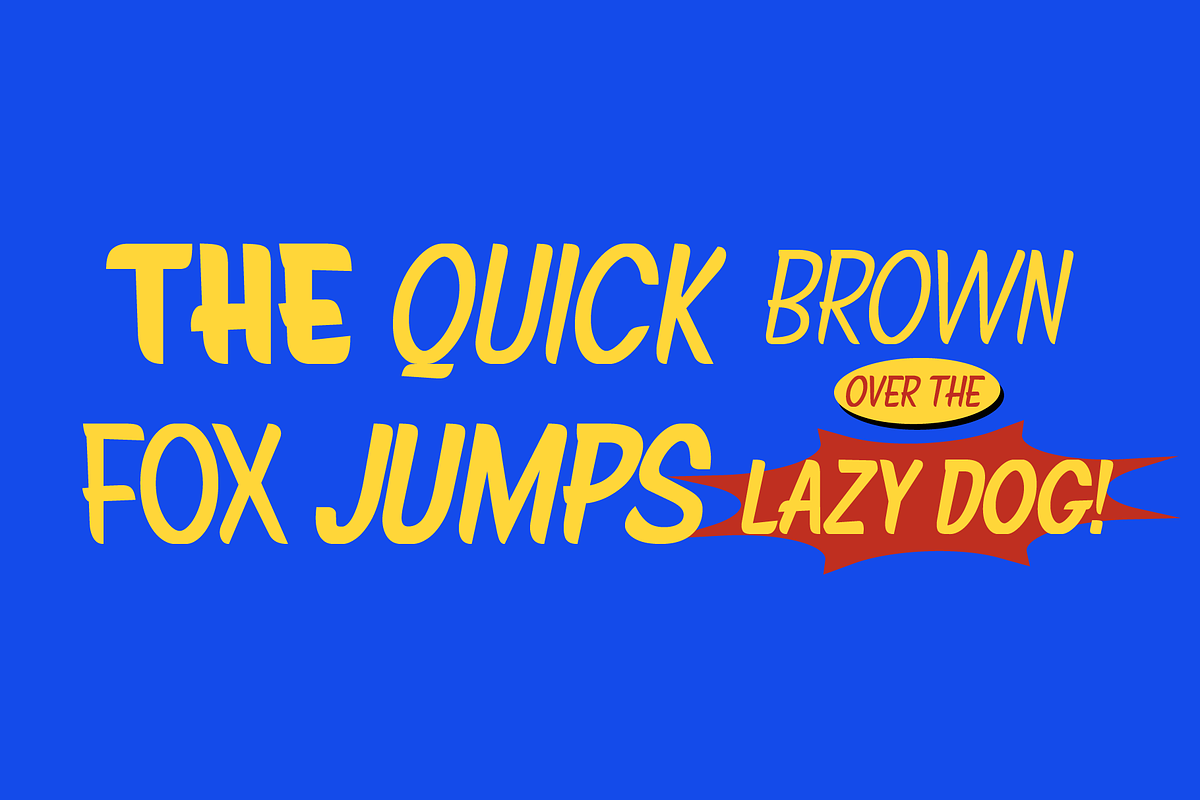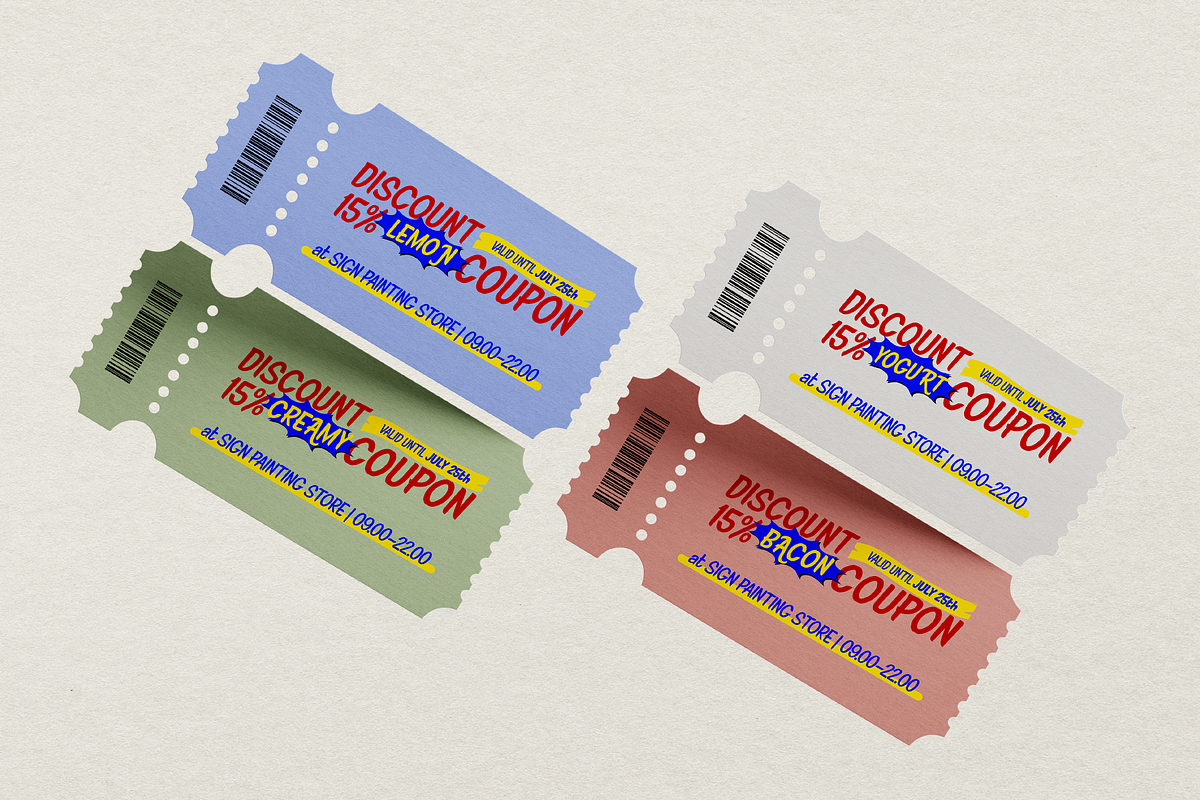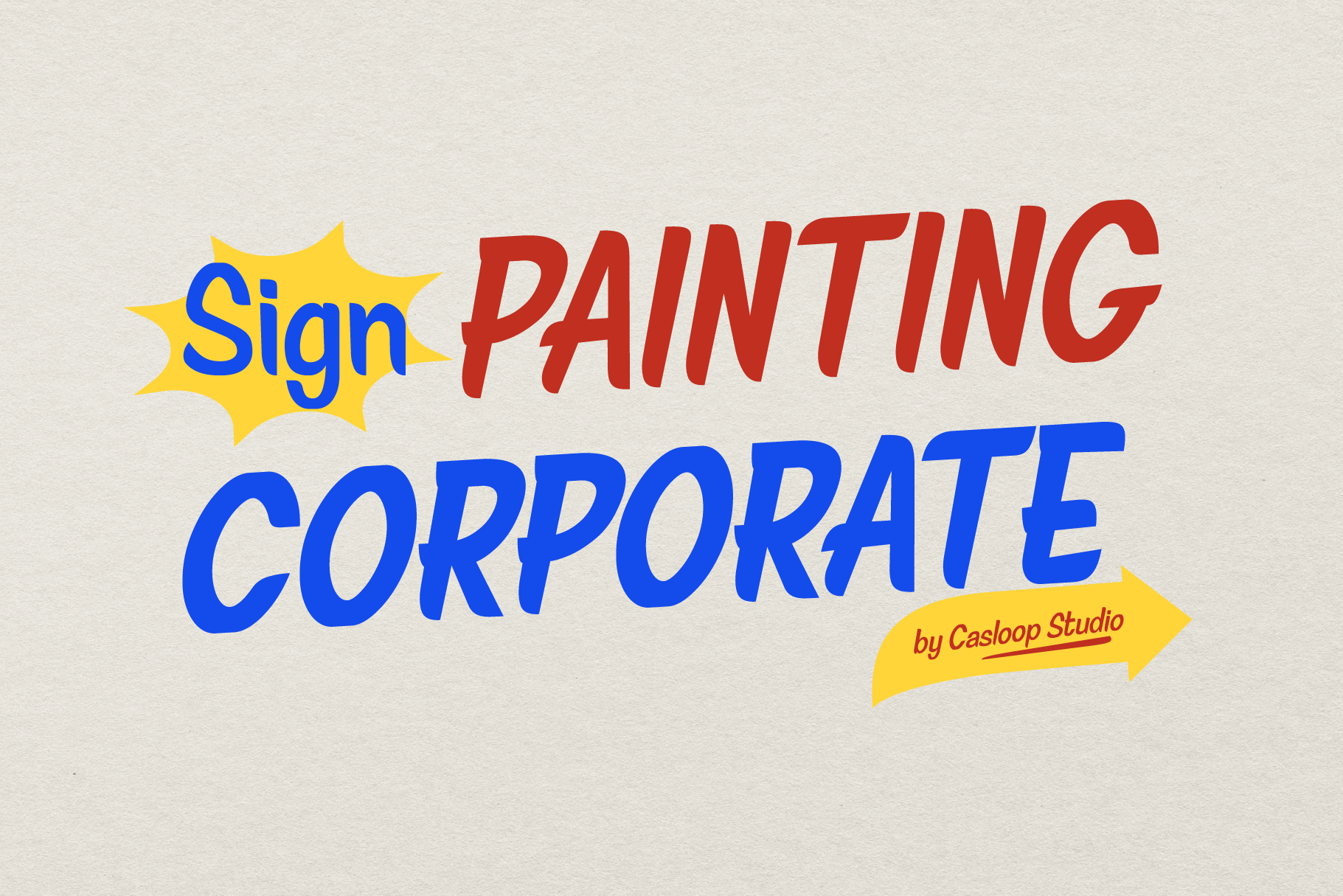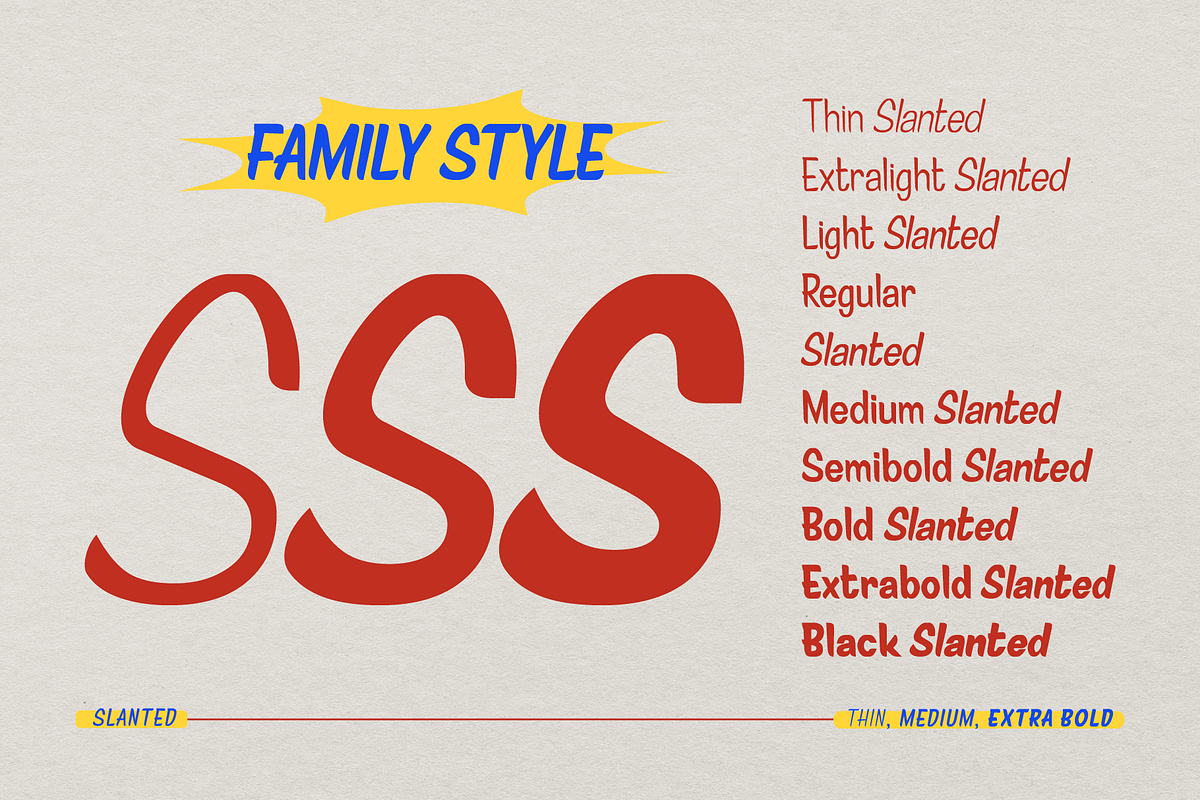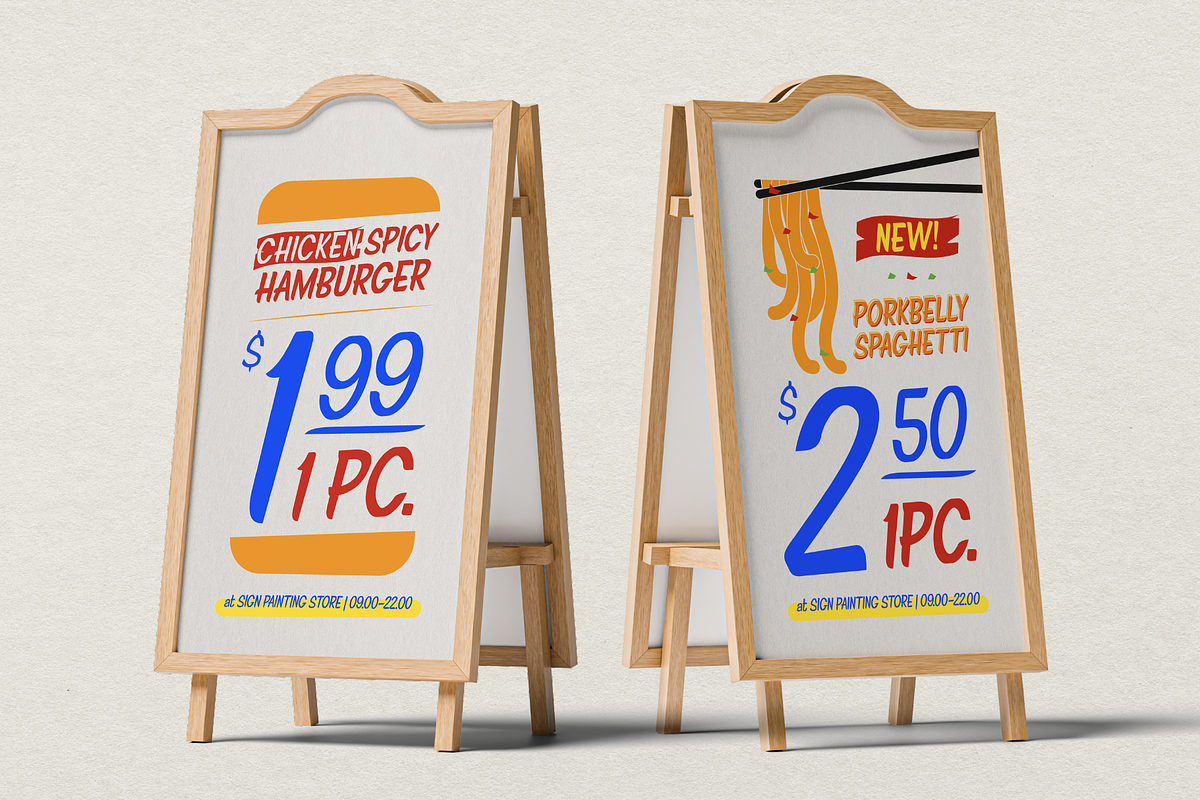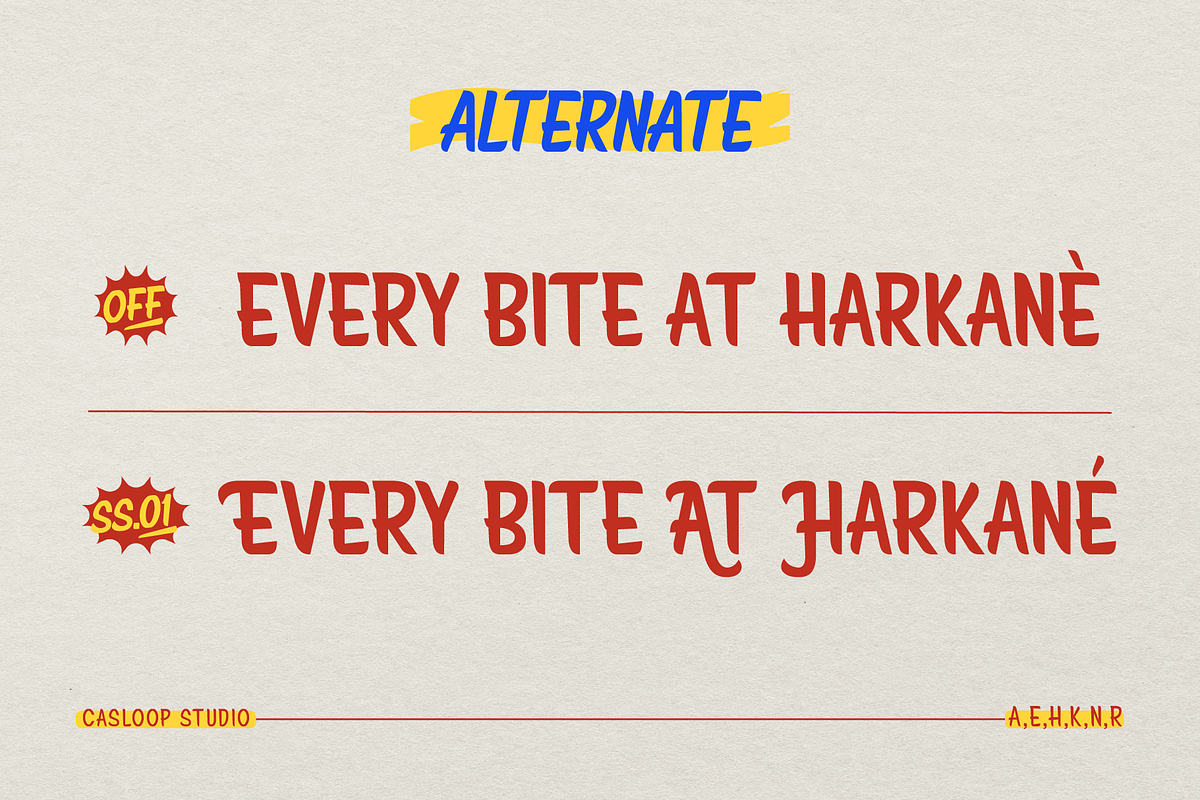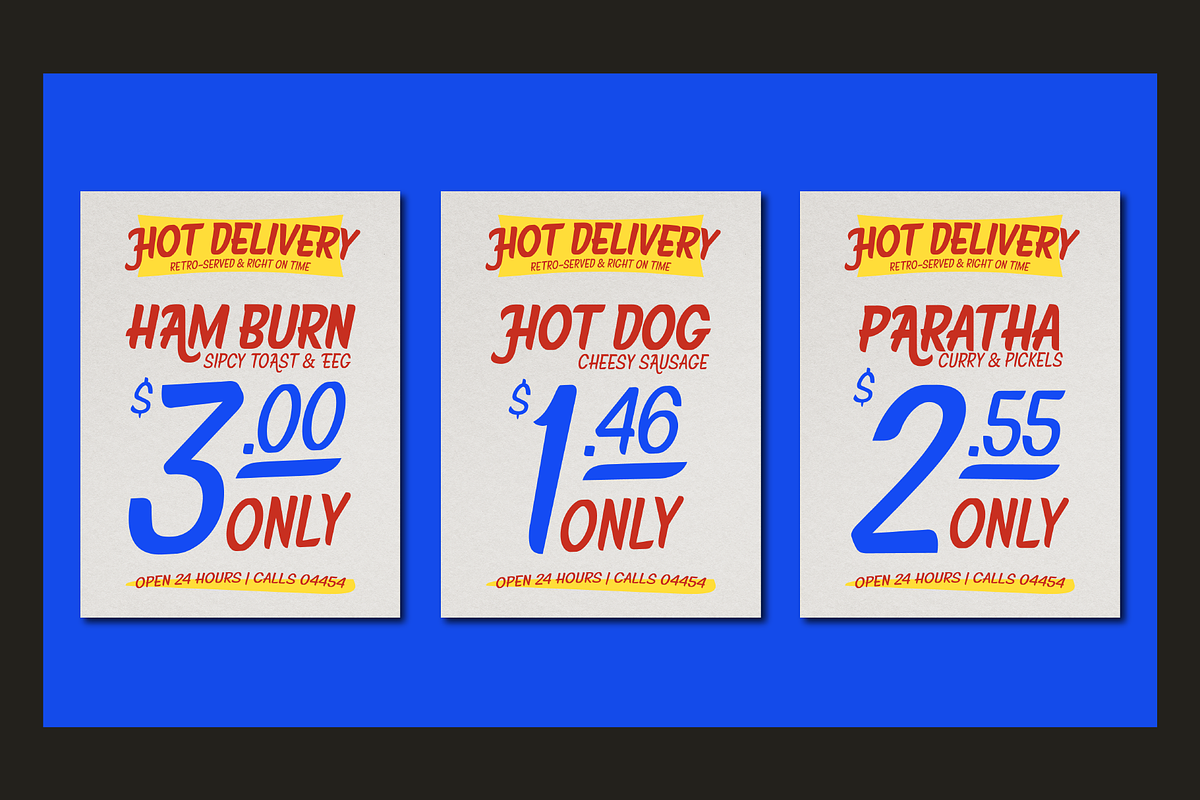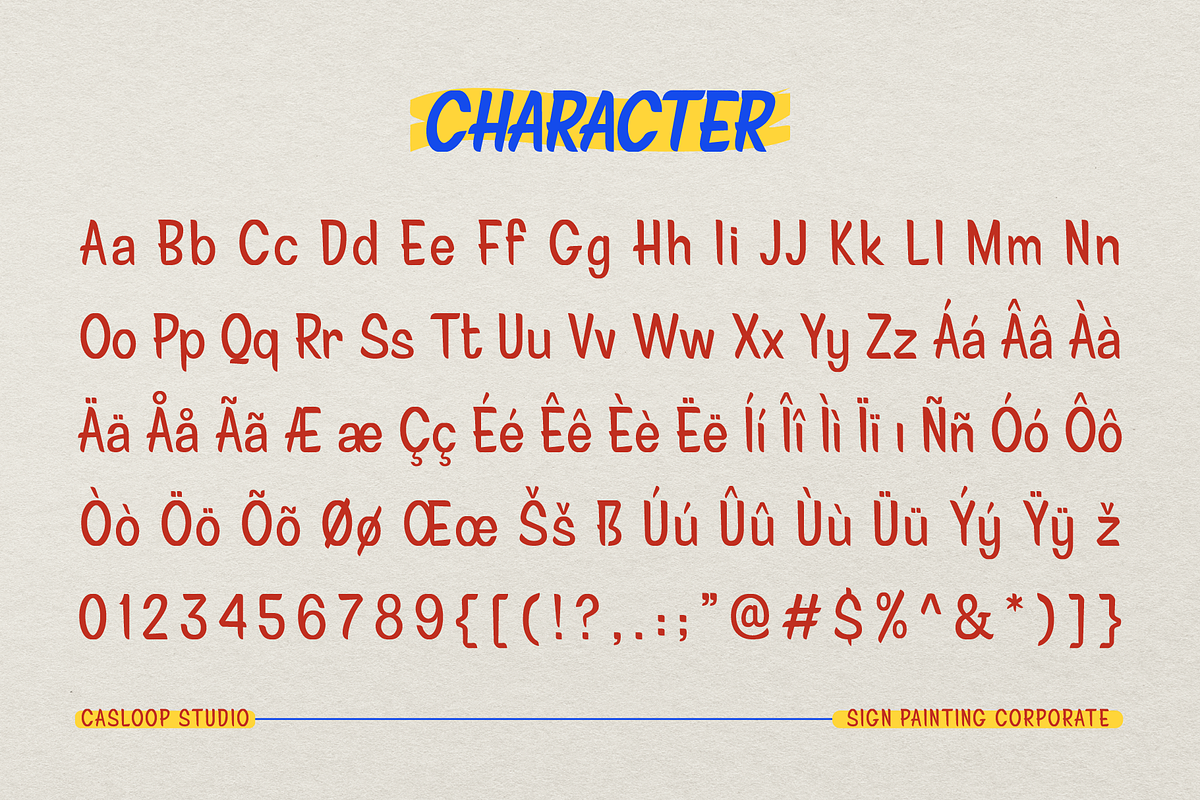
Sign Painting Corporate Font
Sign Painting Corporate is a nostalgic display typeface inspired by the hand-painted signage era of the '60s–'80s — when every street corner was a canvas and every letter told a story. Designed with expressive brush strokes and round, friendly sans, this font captures the bold charm of vintage storefront lettering while staying practical for today’s visual branding. This typeface blends street-side charisma with commercial clarity, making it perfect for projects that want to feel approachable, lively, and instantly recognizable.
Personality “Sign” – a playful sans with rounded friendliness “Painting” – expressive hand-painted script, lively and bold “Corporate” – a strong visual anchor, grounded but full of warmth Feels like: local street vendors, corner barbershops, classic laundromats, homemade posters, open-mic night flyers
Best For -Shop signage & storefront branding -Retro-inspired product packaging -Local event posters & flyers -Food stalls, barbers, and bold branding -Visual storytelling with a human, hand-done touch
From hand-brushed walls to digital displays, Sign Painting Corporate brings the soul of analog signage to modern screens. Whether you're making a label, storefront, or campaign that needs heart, this font gives your work that classic, human-made energy. From Bali with a brush — let's paint your message with Casloop flair.